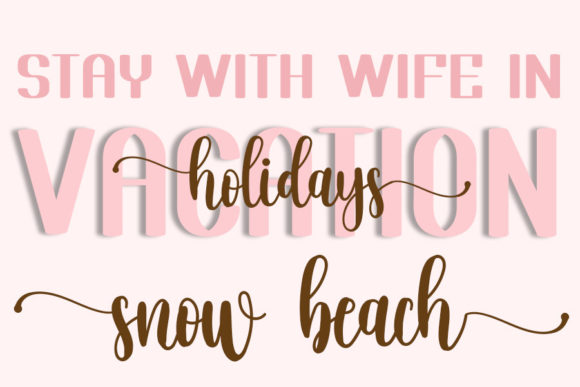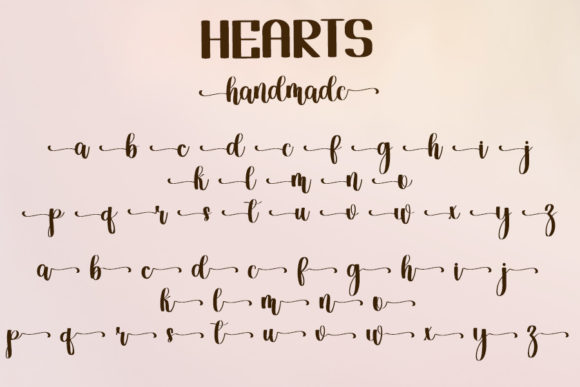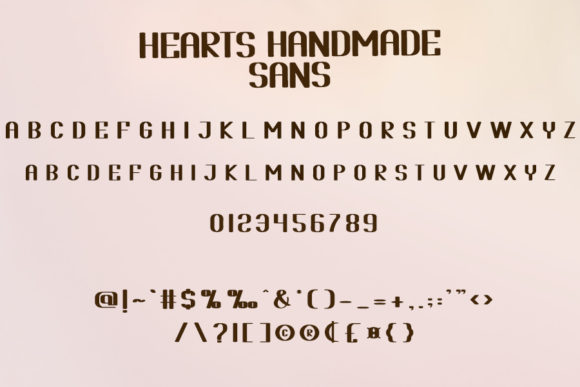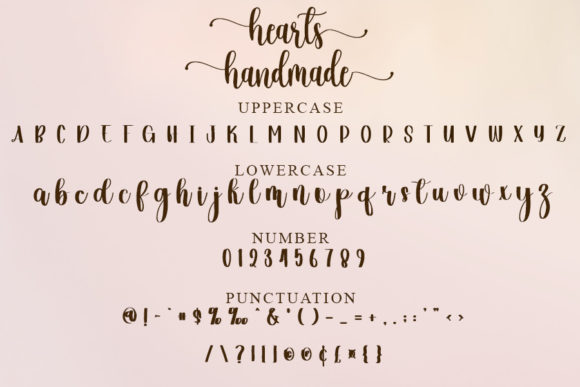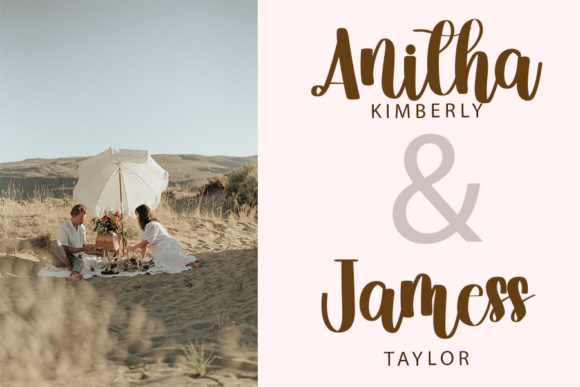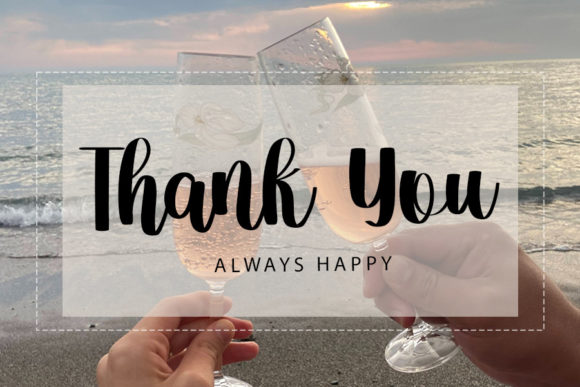
Introduction to Hearts Handmade Font
Hearts Handmade is an enchanting duo font (sans serif and handwritten).
This versatile script font has a wide spectrum of applications ranging from greeting cards to headlines and is guaranteed to add a romantic feel to your next project .